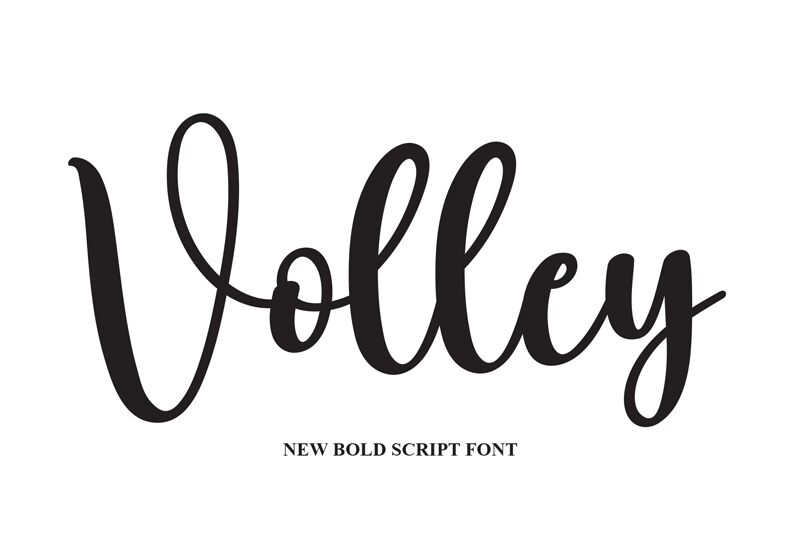
Volley
Volley, a lovely handwritten font by Scratchones, effortlessly adds a touch of elegance to any project. With its flowing strokes and charming imperfections, this font exudes warmth and personality.
Its versatility makes it suitable for a wide range of projects - from wedding invitations and greeting cards to blog headers and branding materials. Whether you're aiming for a whimsical feel or a romantic aesthetic, Volley's delicate curves and graceful lines will bring your designs to life.
Give your work a unique charm with Volley's enchanting handwritten style.